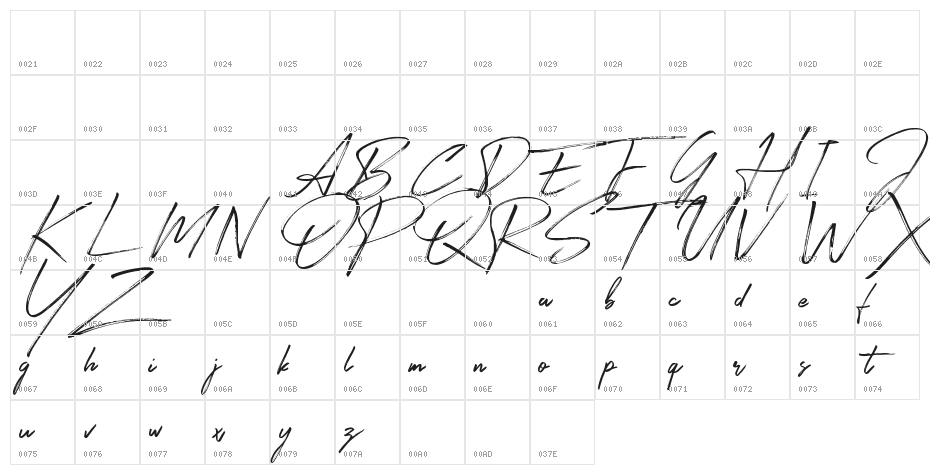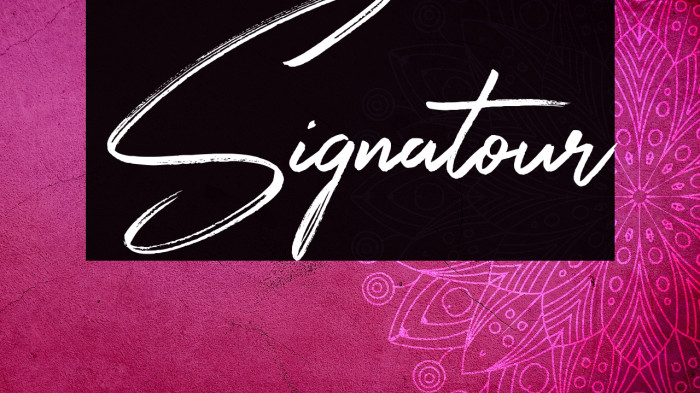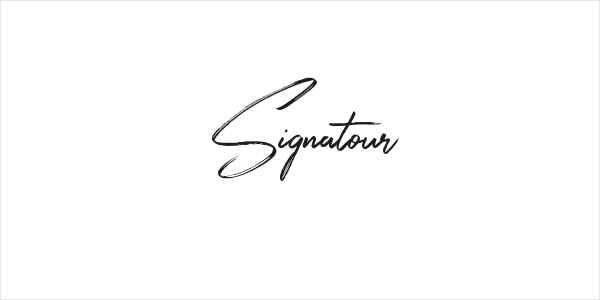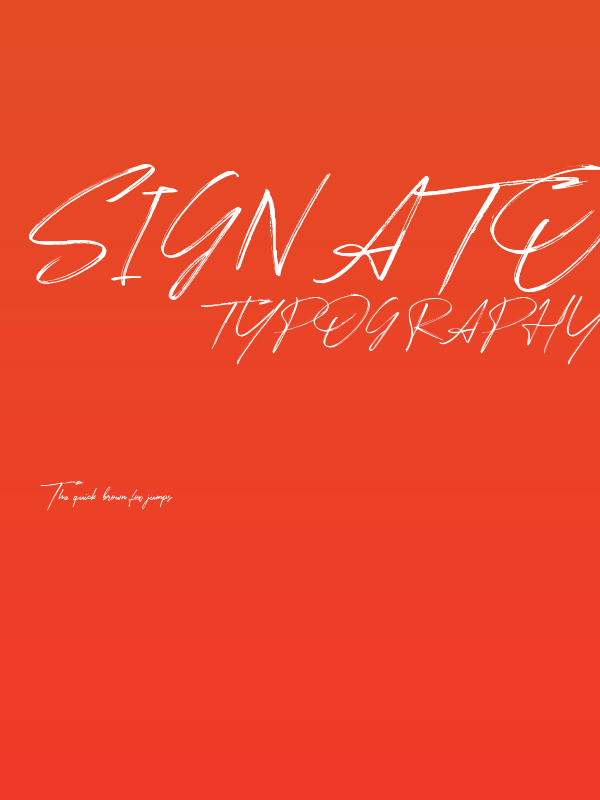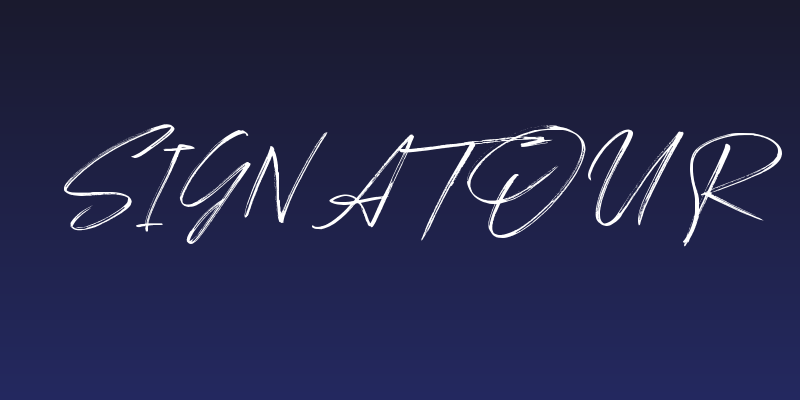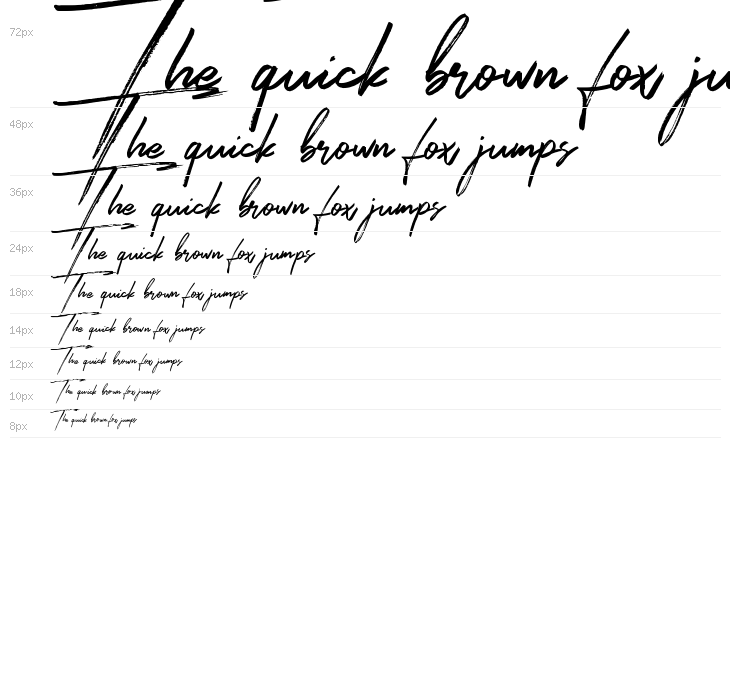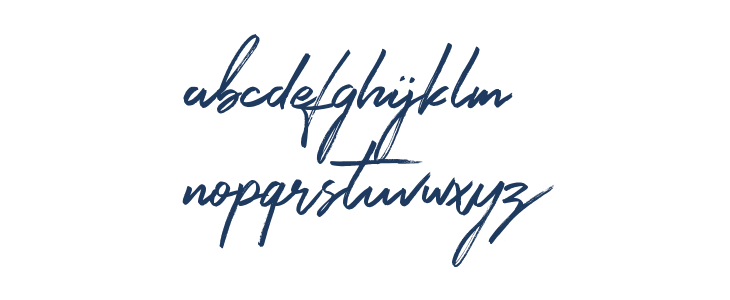
Signatour Font
Signatour Description
This font exudes a dynamic and expressive style, characterized by its fluid, cursive strokes that mimic the natural flow of handwriting. The uppercase letters are elegantly elongated, with a slight slant that adds a sense of motion and grace. The lowercase letters maintain a consistent rhythm, with some characters featuring distinctive loops and flourishes that enhance the handwritten feel. The overall appearance is both sophisticated and approachable, making it ideal for projects that require a personal touch. The font's varying stroke thickness adds depth and interest, while the spacing between characters is balanced to ensure readability.